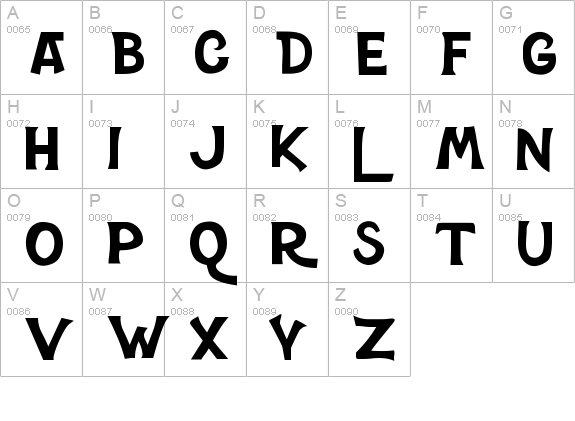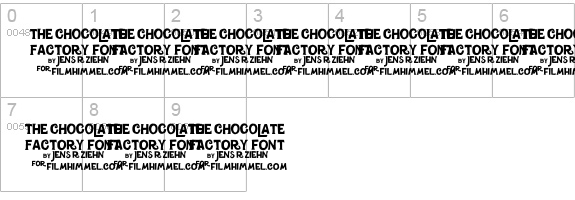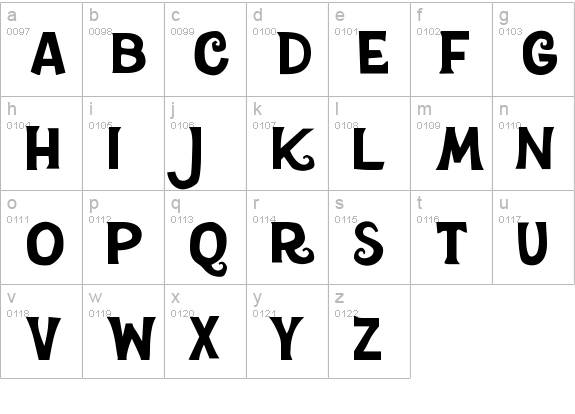
Chocolate Factory Font Details
The Chocolate Factory font is a delightful and whimsical typeface that will transport you to a world of sweetness and indulgence. With its charmingly curved letterforms and playful serifs, this font captures the essence of a chocolate lover's paradise. Designed with meticulous attention to detail, the Chocolate Factory font offers a unique and delectable typography experience. Each character is beautifully crafted, resembling the smooth and velvety texture of your favorite artisanal chocolates. The elegant curves and intricate flourishes evoke a sense of luxury and sophistication, making this font perfect for a wide range of creative projects. Whether you are designing a menu for a gourmet chocolate shop, creating a logo for a confectionery brand, or crafting invitations for a sweet-themed event, the Chocolate Factory font is sure to add a touch of deliciousness to your designs. Its versatility allows it to be used in both bold headlines and delicate body text, ensuring that your message is conveyed with style and flair. What makes the Chocolate Factory font even more irresistible is that it is available for free! You can easily download this font from FontsMarket.com, a trusted source for high-quality and freely available fonts. By making it freely accessible, the creators of the Chocolate Factory font have ensured that anyone can bring a taste of chocolate-inspired design into their projects, without any barriers or limitations. So, why wait? Indulge your creative cravings and infuse your designs with the sweet charm of the Chocolate Factory font. Download it today from FontsMarket.com and embark on a typographic journey that is as delightful as biting into a decadent chocolate truffle.